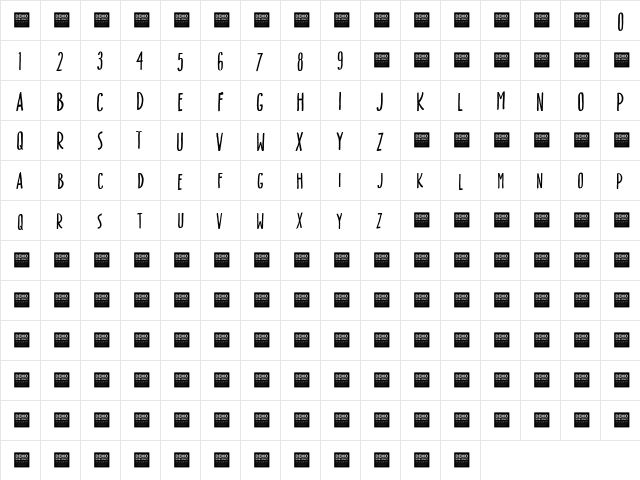
Box Office - Demo Regular Font Preview
Box Office - Demo Regular
Box Office - Demo Regular Font Details
Design Context for Box Office - Demo Typeface
Box Office - Demo takes a measured approach to typography — its balanced proportions and neutral character make it a reliable workhorse for both digital and print work.